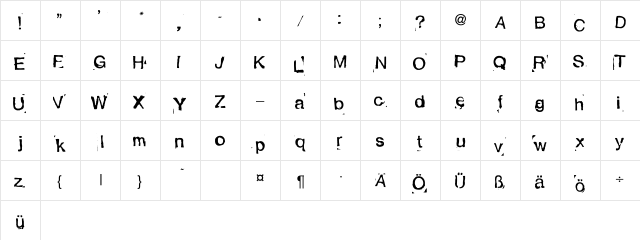
Complete Alexandras Stempelkasten glyph index. Displaying only characters natively supported by Alexandras Stempelkasten font.
Alexandras Stempelkasten is a composed and adaptable typeface that performs quietly and consistently across a wide range of design contexts.